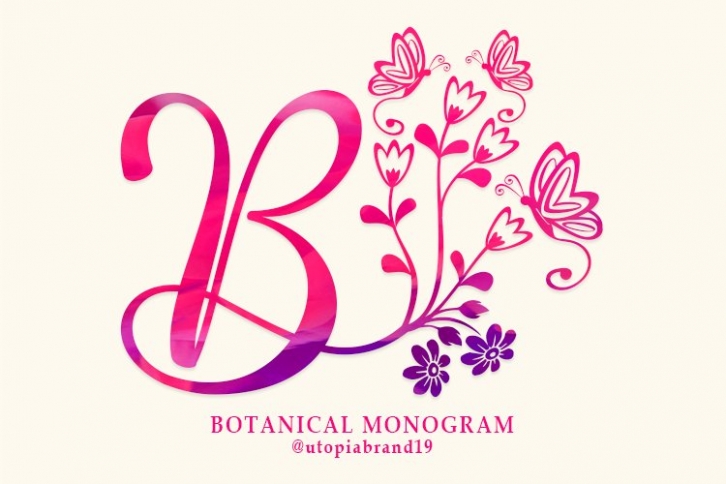
Botanical Monogram is a trendy and unique font with an authentic style. It was designed by Ayah Phoen and it's a great choice for creative people who need such a font. It was released on January 27, 2021 and the file size is 5.56 MB. Botanical Monogram will add an organic vibe to any design idea!